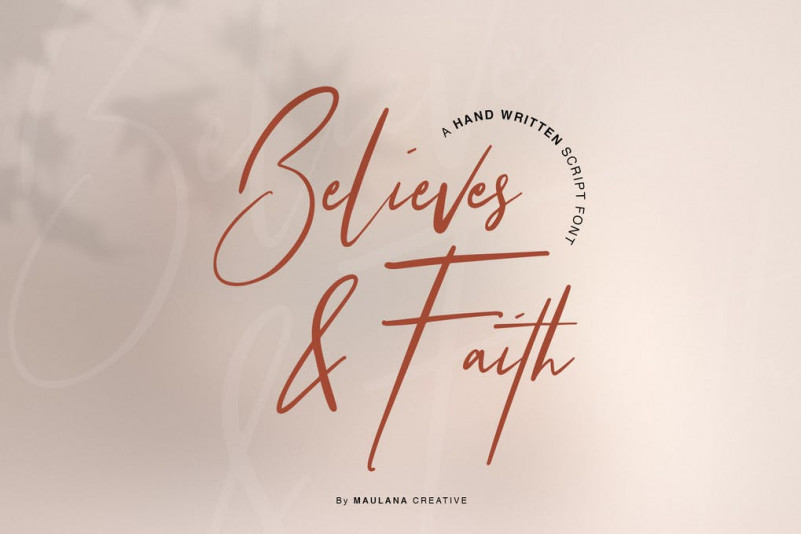
Believes And Faith Font
Give your designs an authentic handcrafted feel. “Believes And Faith Font” is perfectly suited to stationery, logos and much more.